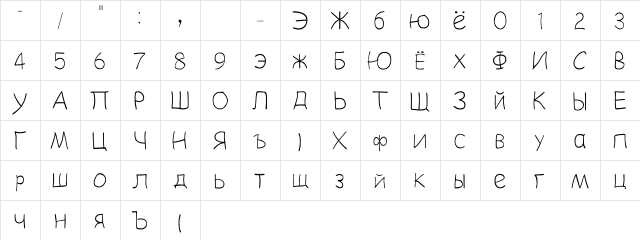
hetarosia Regular
Design Context for hetarosia Typeface
hetarosia offers clean, dependable letterforms without strong stylistic allegiance, making it a practical choice for designers who need flexibility.
Pro Tip: Use hetarosia in both headline and body roles to test its range before committing to a single application.